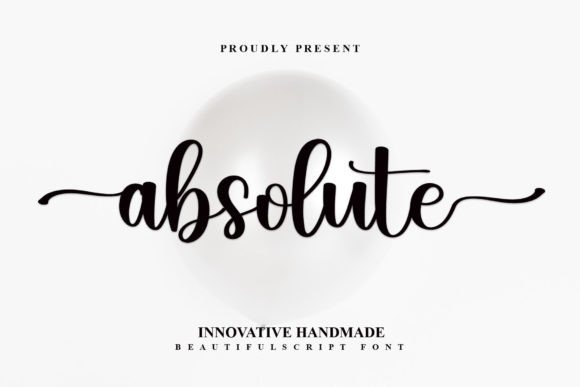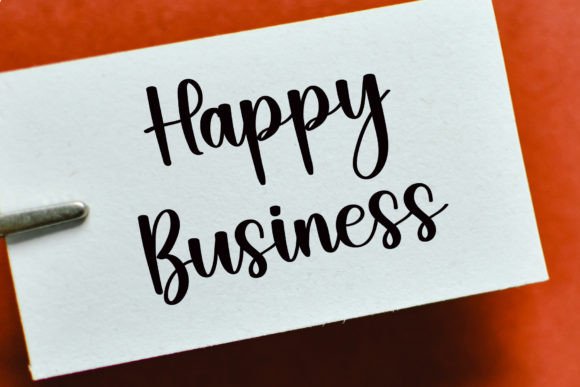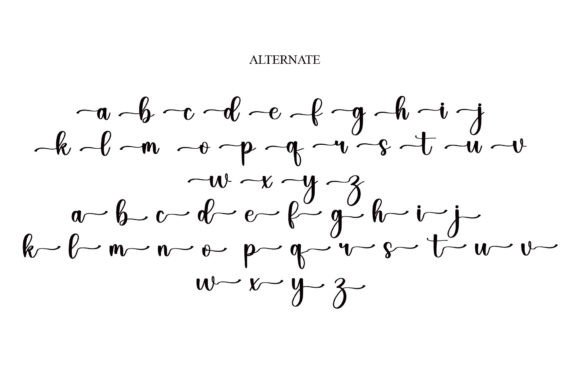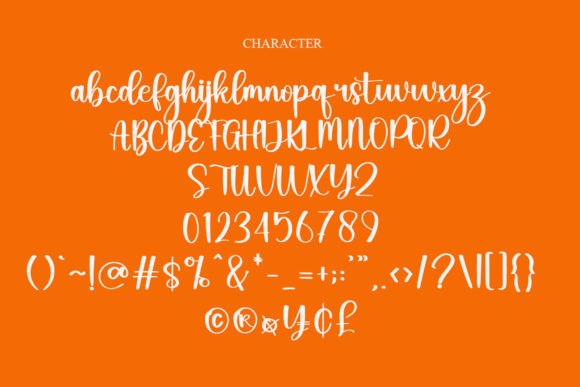
Absolute Font: Elegant Handwritten Script for Wedding & Logo Design
About the Absolute Font
Experience the unique personality of Absolute Font, a font designed for impact. Absolute is an enchanting handwritten font. This versatile script font has a wide spectrum of applications ranging from greeting cards to headlines and is guaranteed to add a romantic feel to your next project.
Absolute’s romantic feel makes it ideal for projects requiring a touch of elegance and warmth, such as wedding invitations, branding for luxury goods, or handcrafted product packaging. Headlines and short text blocks also benefit from its charming character. However, its cursive nature makes it unsuitable for body text or UI elements where readability is paramount; extended use will significantly hinder legibility.
For a balanced aesthetic, pair Absolute with a clean sans-serif like Lato for a modern contrast, or a classic serif such as Garamond for a more traditional feel. A geometric sans-serif, such as Montserrat, could also create a visually interesting juxtaposition, grounding the script’s fluidity.
Its overall personality is best described as romantic and elegant, yet approachable; avoid using it for projects requiring a bold, serious, or minimalist tone.